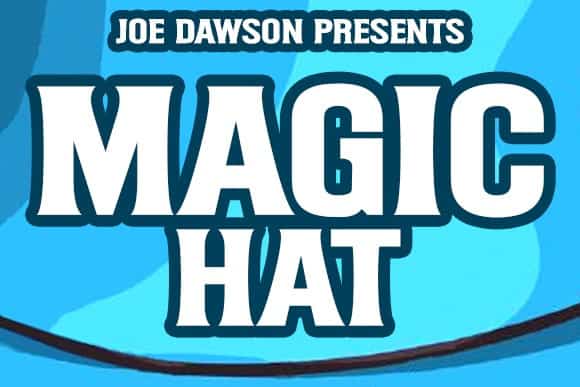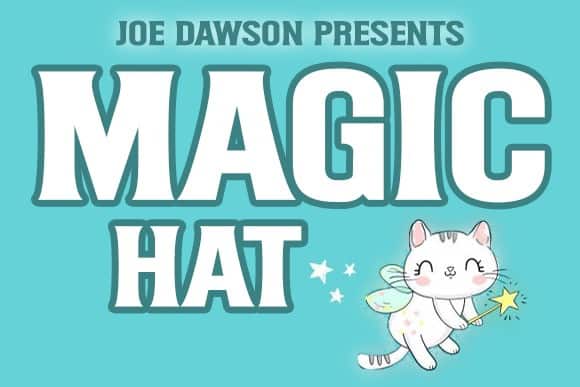
Magic Hat Display Font
Magic Hat Display Font features a deliciously dark and heavy display face powerful enough to transform any tome into an epic page-turner. This typeface is designed and shared by Joe Dawson. It’s A bold and chunky lettered display font. Add this font to your creative ideas and notice how it will make them stand out! Use it for commanding text on book covers, movie posters, brand identities and store signage to promote your message with strength and authority.